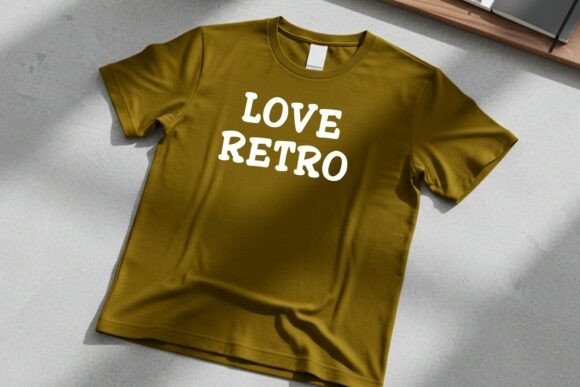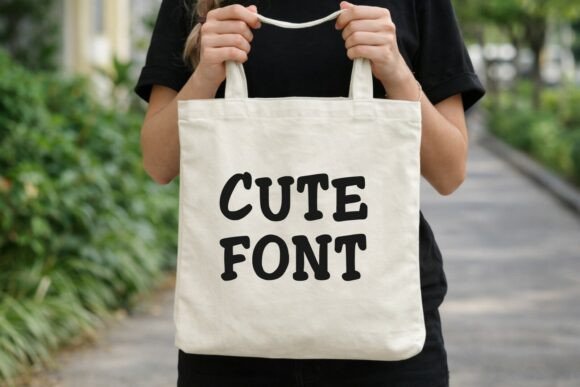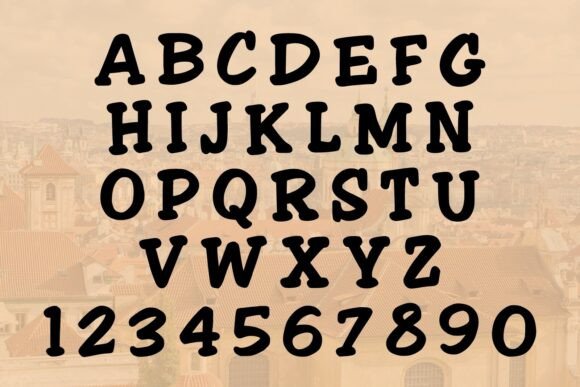
Introduction to Chunky Sunday Font
As designers, we’ve all been there – staring at a blank canvas, struggling to find the perfect font to bring our creative vision to life. For me, it was a lazy Sunday afternoon, surrounded by vintage posters and dusty design books. I stumbled upon a quirky, bold font that instantly sparked inspiration – the Chunky Sunday Font. Its playful, rounded letterforms transported me to a bygone era, evoking memories of classic summers and carefree days.
What makes the Chunky Sunday Font truly special is its unique blend of vintage charm and modern readability. With its high-quality design, it’s perfect for designers seeking a reliable, eye-catching font for their creative projects. Whether you’re working on a retro-themed graphic, designing a logo, or creating a t-shirt design, this font is a valuable resource that’s sure to elevate your work.
Key Features of Chunky Sunday Font
- Unique, high-quality design with a playful and creative feel, making it perfect for various design projects.
- Designed to be highly scalable, with a large character set and detailed glyphs, making it ideal for use in various sizes and resolutions.
- Features a bold, chunky style with a Sunday-inspired aesthetic, perfect for creating eye-catching and engaging designs.
Honest Review: Chunky Sunday Font
As a designer, I’m always on the lookout for high-quality design resources to elevate my creative projects. Recently, I had the chance to try out the Chunky Sunday Font, and I must say, it’s a game-changer. ✨ The font is perfect for adding a touch of whimsy and playfulness to any design.
- High-quality design: The Chunky Sunday Font is incredibly detailed and well-designed, making it perfect for printing or using on digital screens.
However, there are a few limitations to consider. ⚠️ The font is only available in a limited range of weights and styles, which may limit its versatility in certain designs.
Overall, I’m thoroughly impressed with the Chunky Sunday Font. It’s a fantastic addition to any designer’s toolkit, and I highly recommend giving it a try.